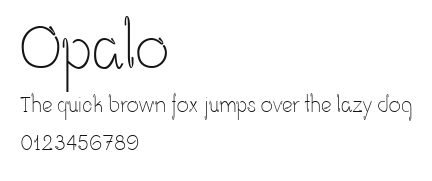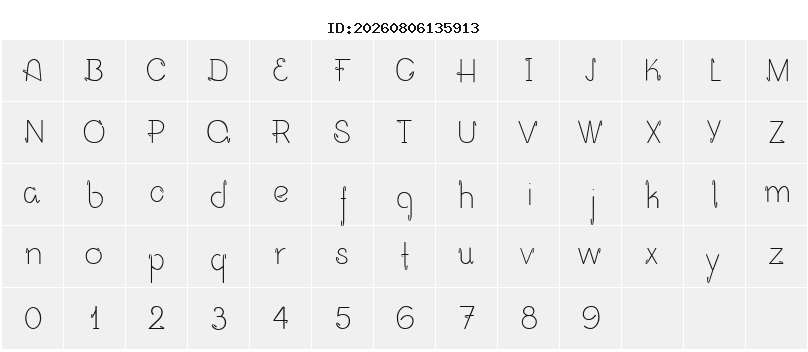
Opalo.ttf is a modern, elegant sans-serif font designed for ultimate readability and visual harmony. Perfect for branding, headlines, web design, and print materials.